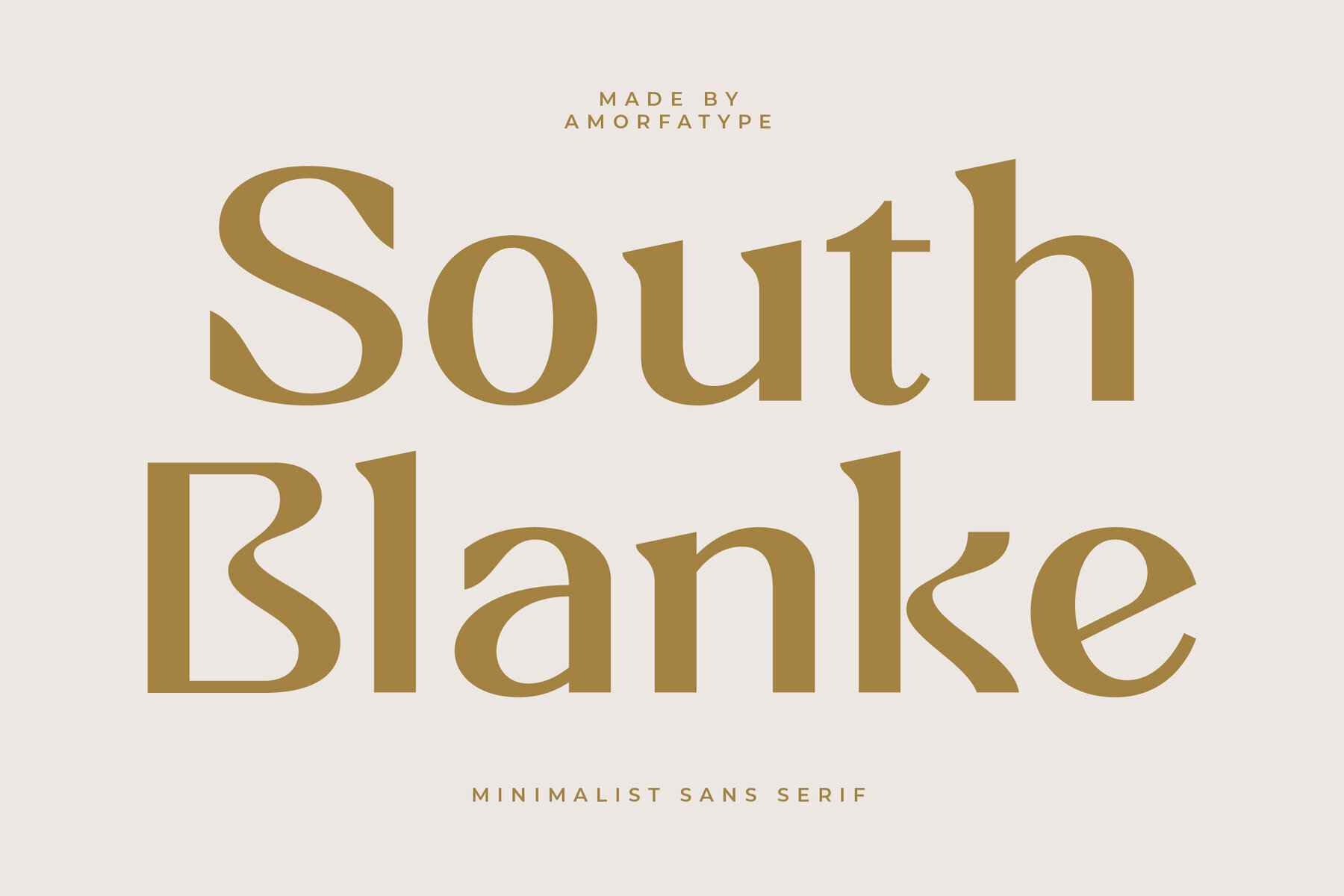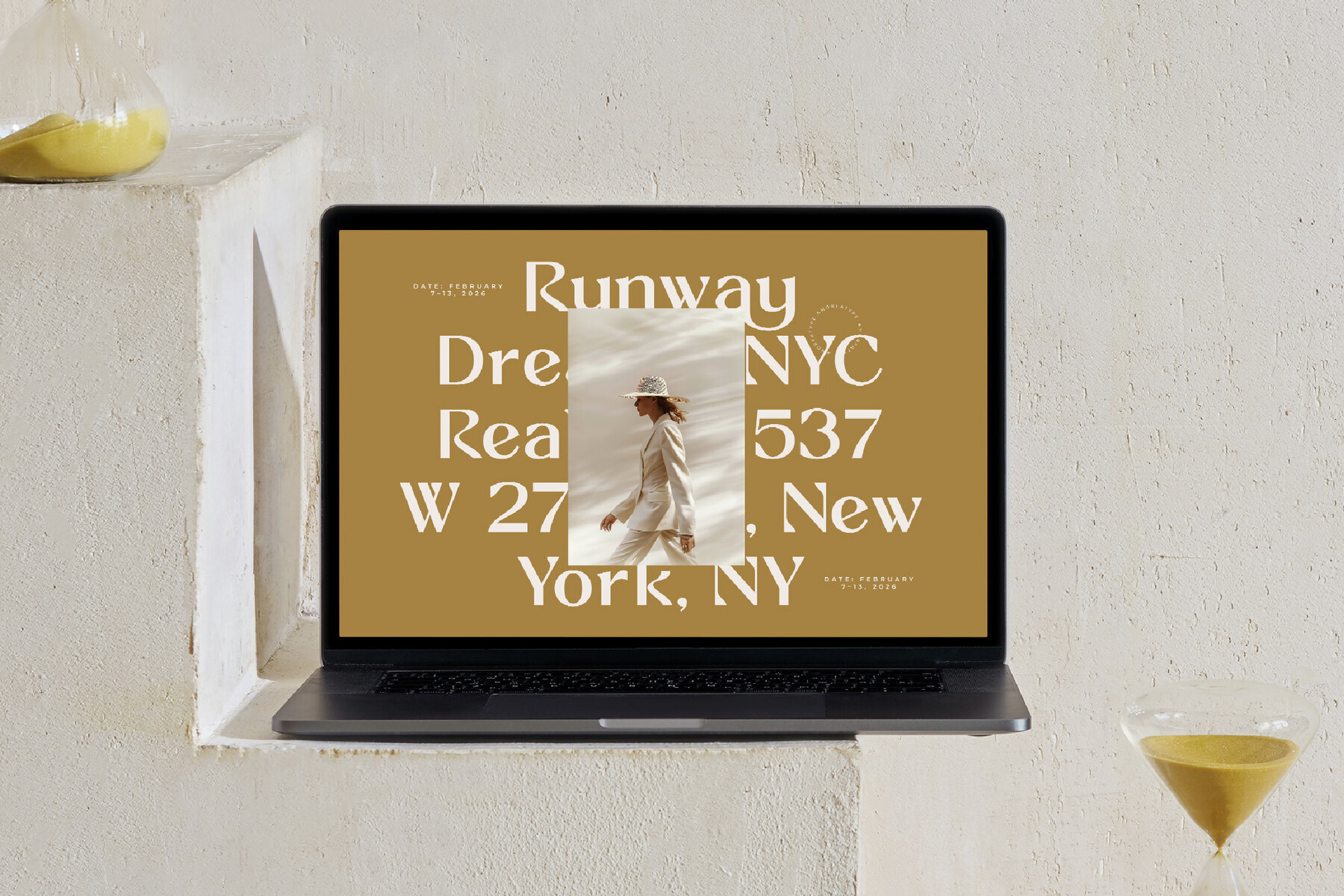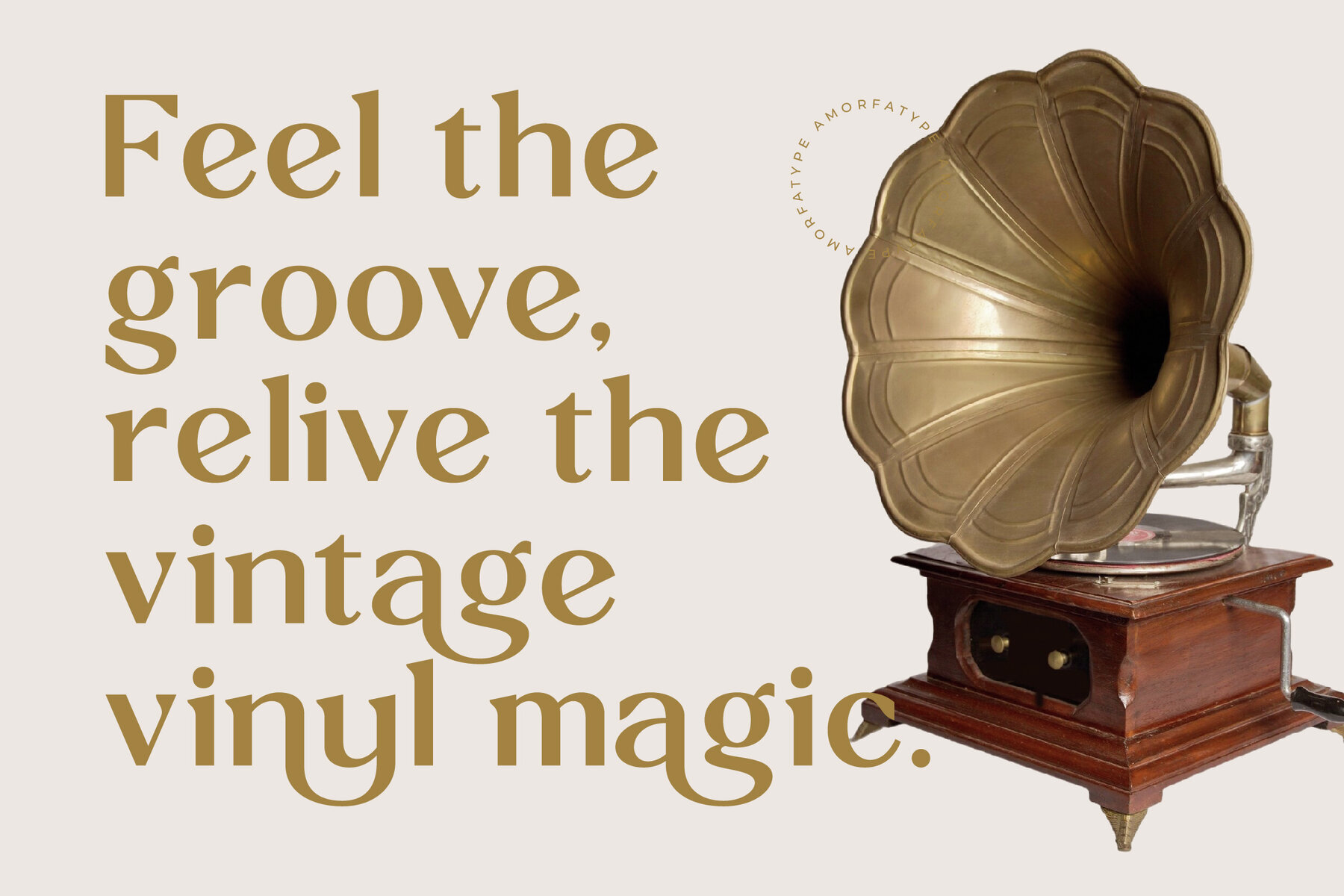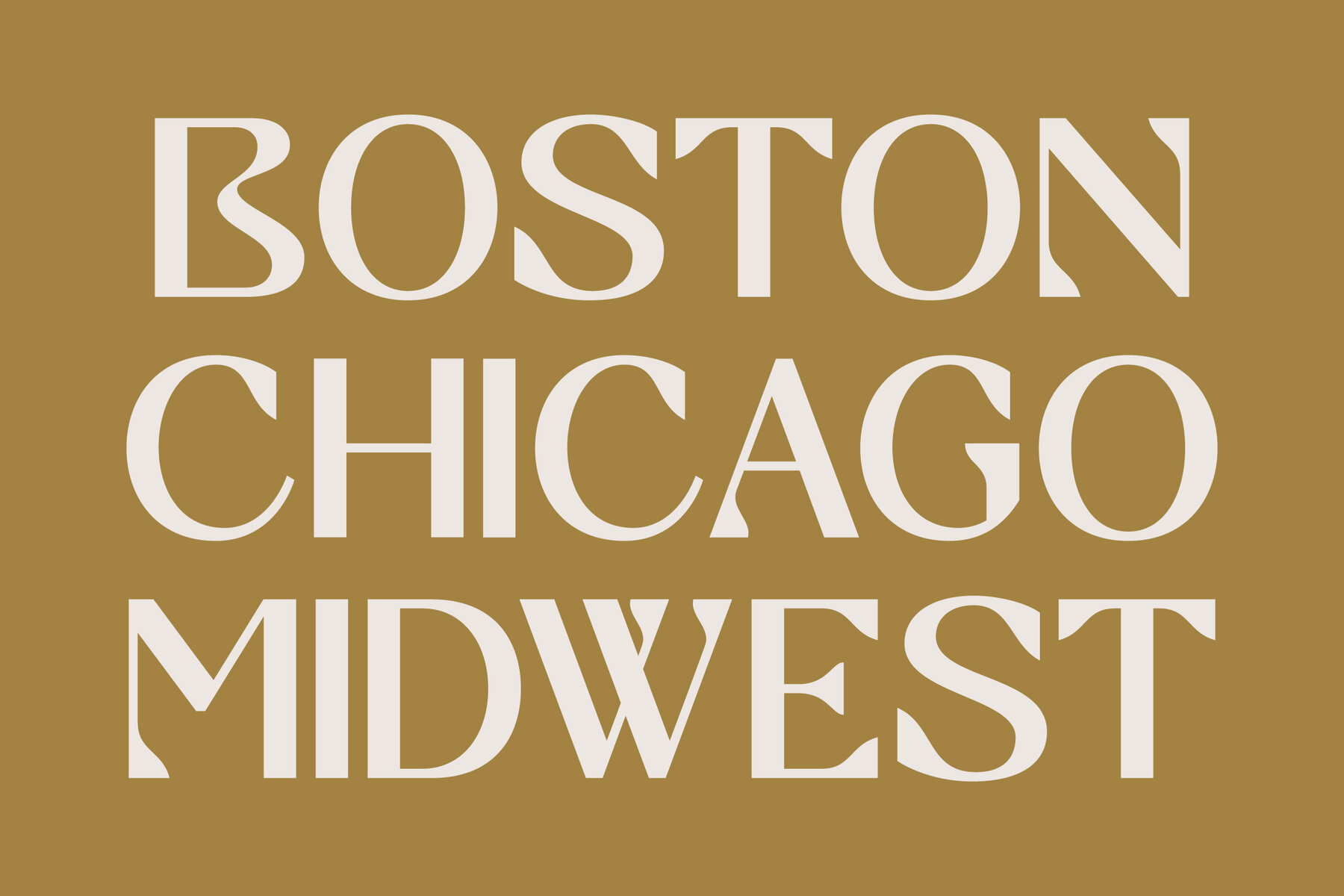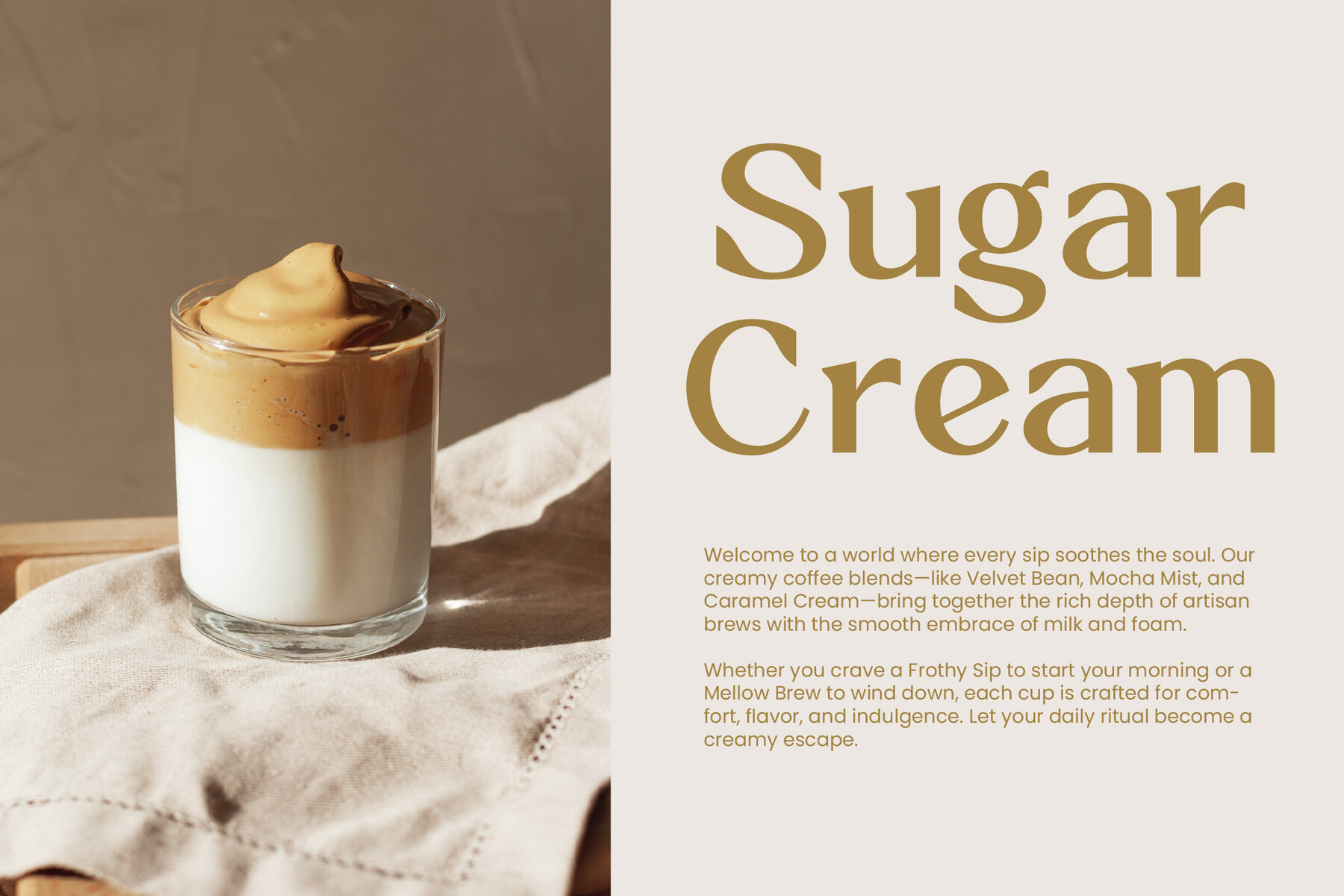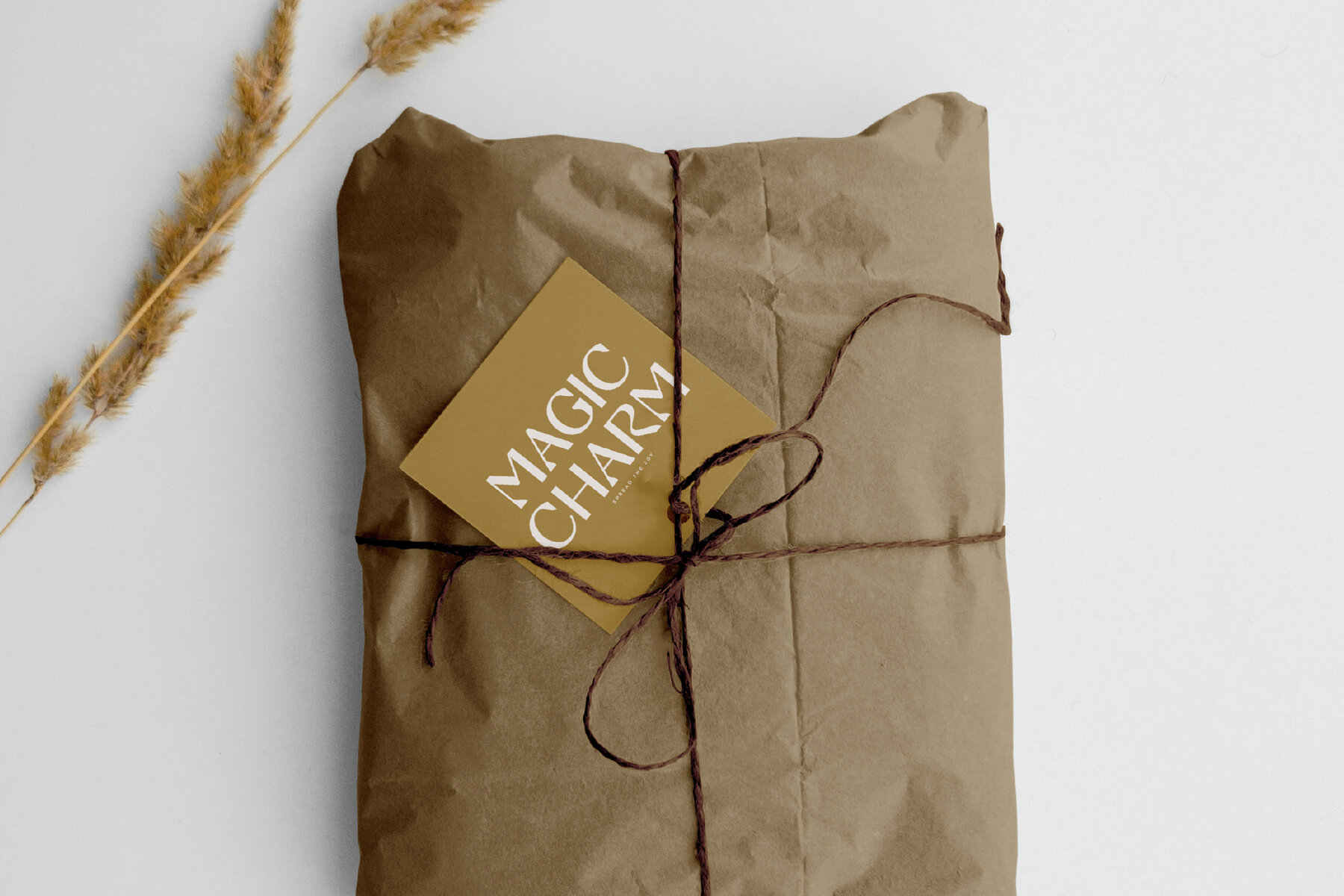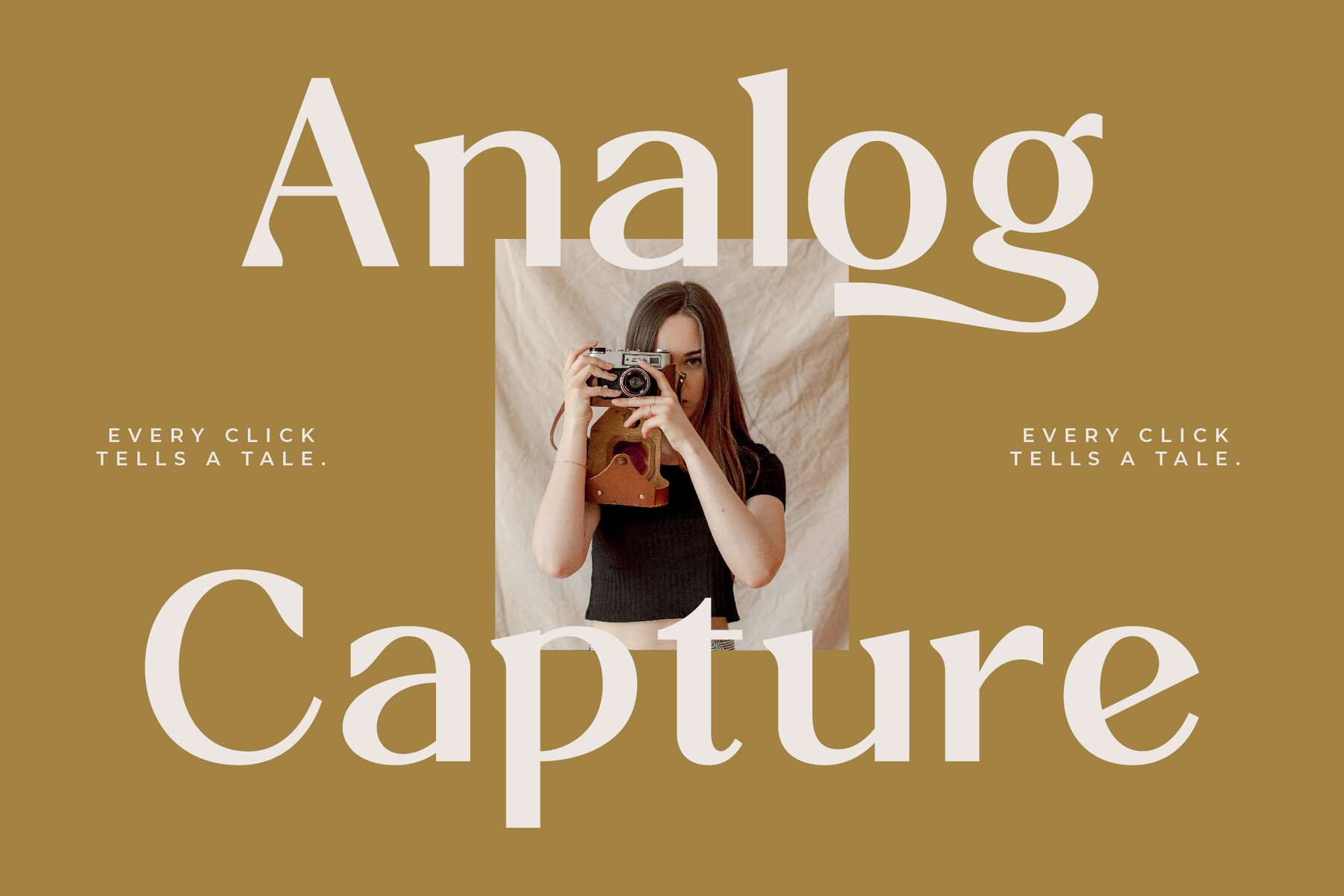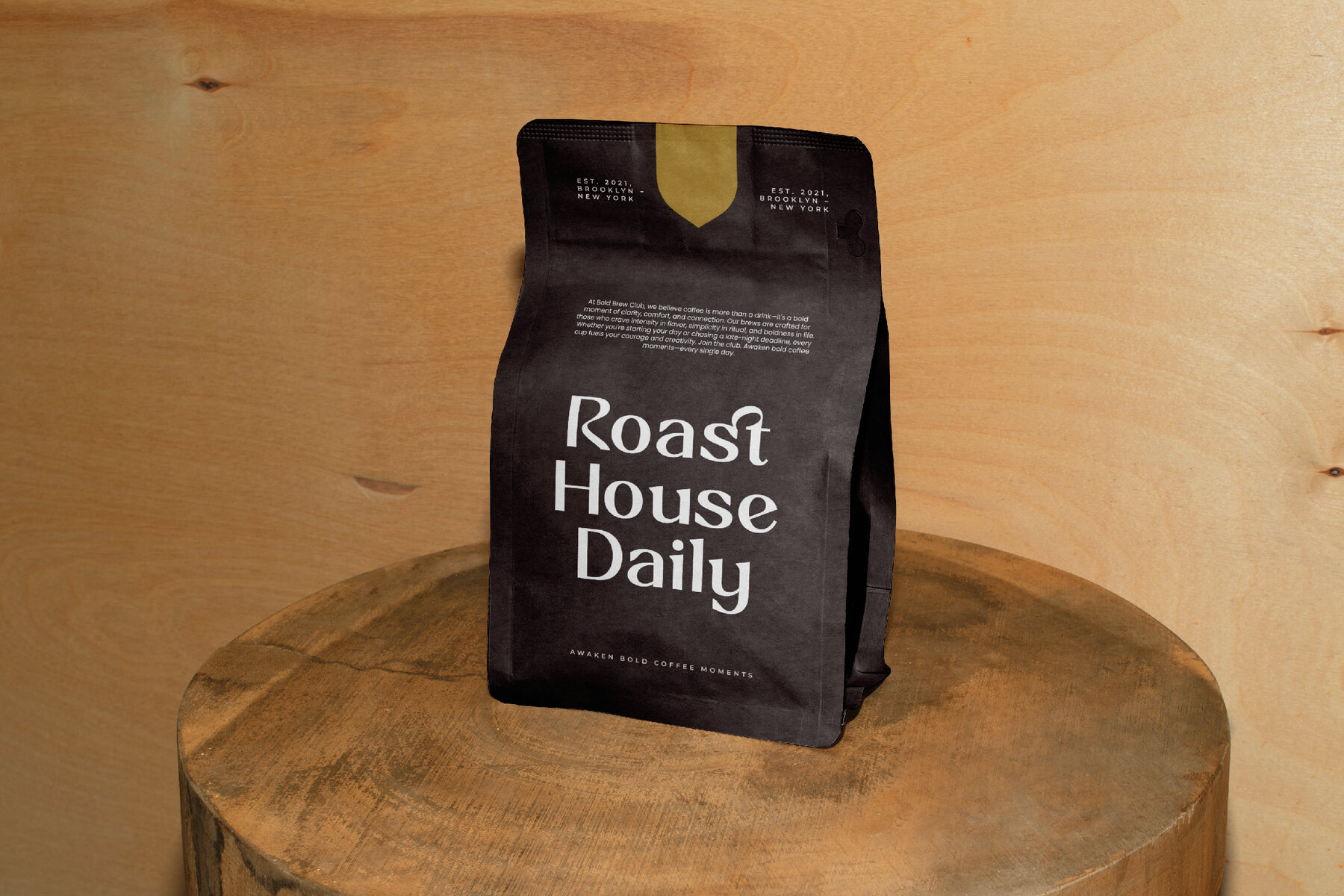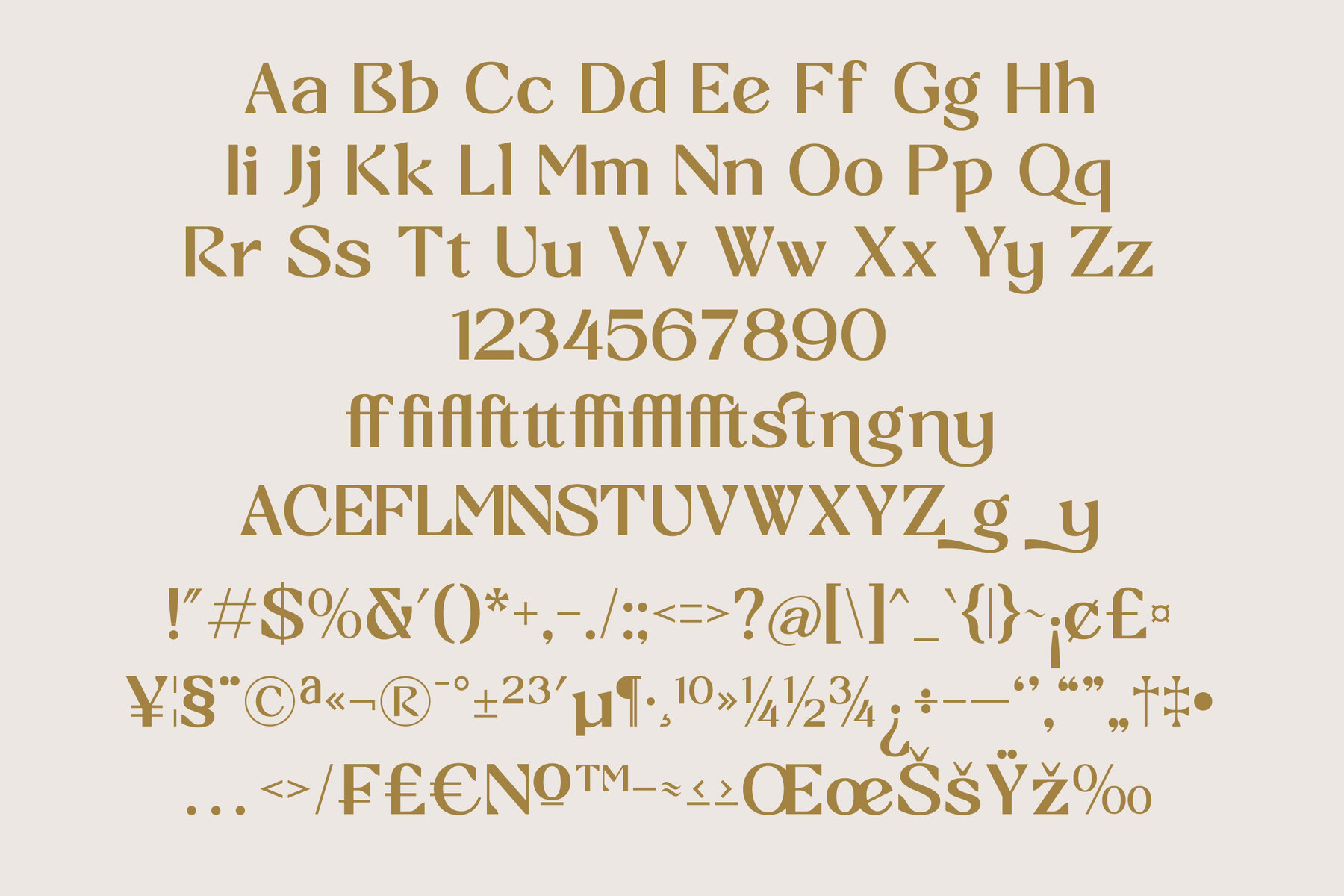
South Blanke Font
South Blanke is a clean and modern minimalist sans serif font that embodies simplicity with a refined, elegant touch. With its balanced letterforms, smooth curves, and crisp geometry, South Blanke offers a timeless look that’s perfect for contemporary branding, editorial layouts, digital interfaces, and stylish packaging. Designed to be both subtle and versatile, South Blanke excels in delivering clarity and modern sophistication without visual clutter. Whether used for bold titles, sleek logos, or minimalist body text, this font brings a polished, professional edge to your typography. Each character is crafted with precision to ensure high readability while maintaining a cohesive visual rhythm. This Package Includes:South Blanke – A Minimalist Sans Serif Font by Amorfatype